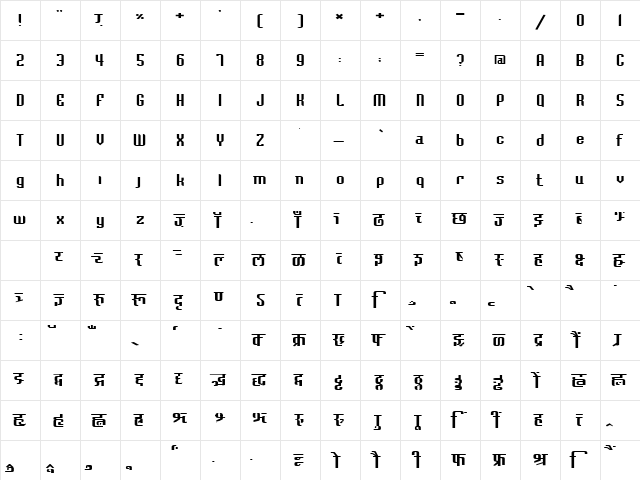
AkrutiOfficeAkshay Normal Font Preview
AkrutiOfficeAkshay Normal
AkrutiOfficeAkshay Normal Font Details
Design Context for AkrutiOfficeAkshay Typeface
AkrutiOfficeAkshay is a composed and adaptable typeface that performs quietly and consistently across a wide range of design contexts.